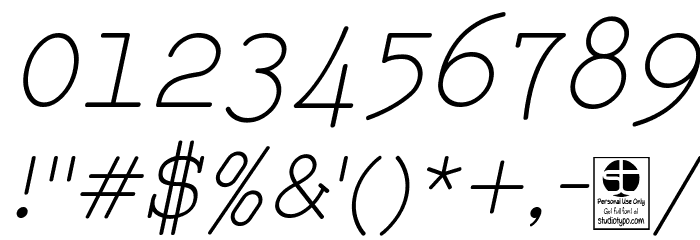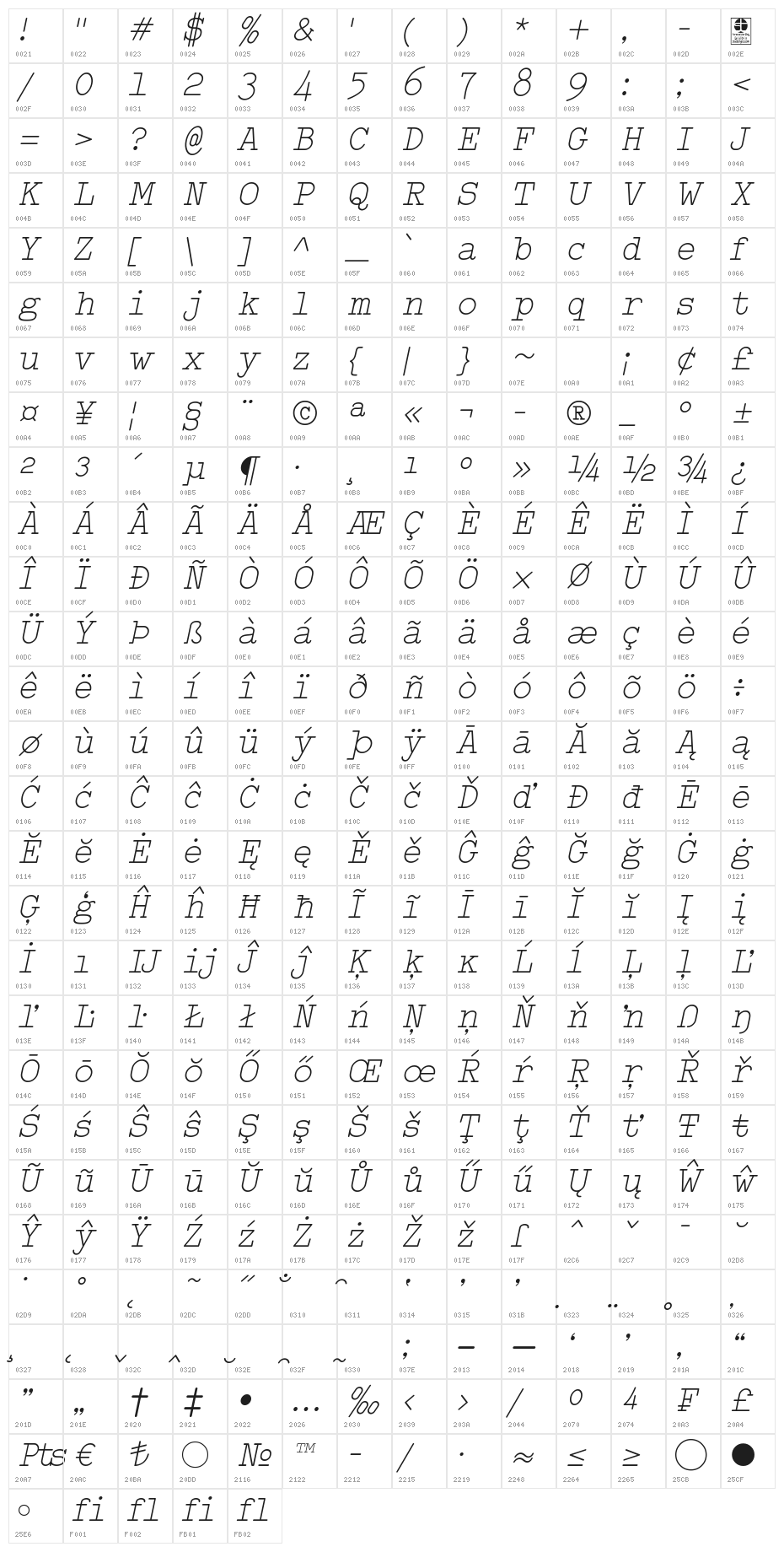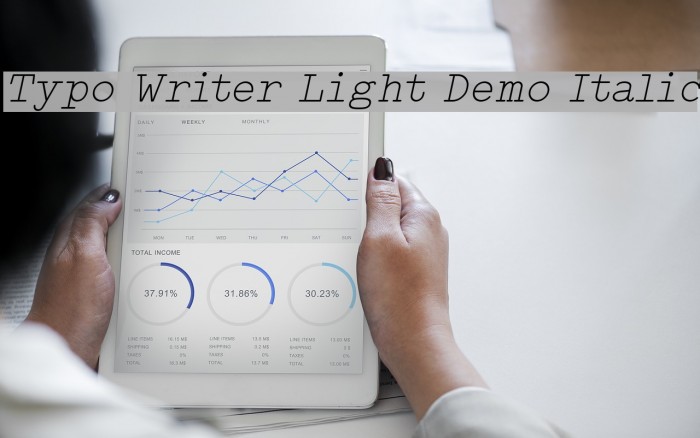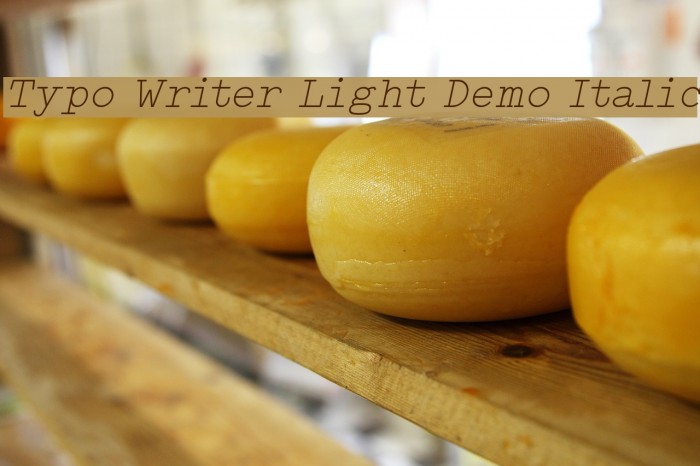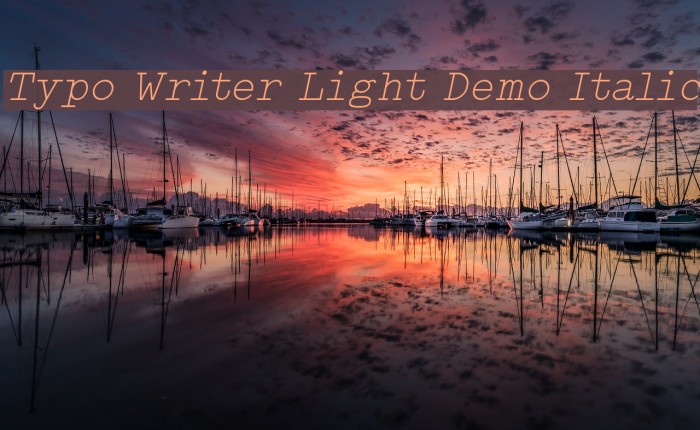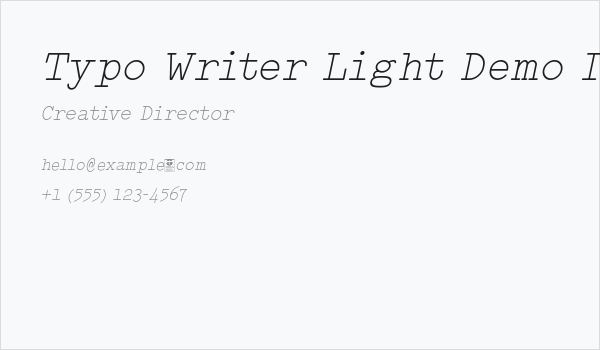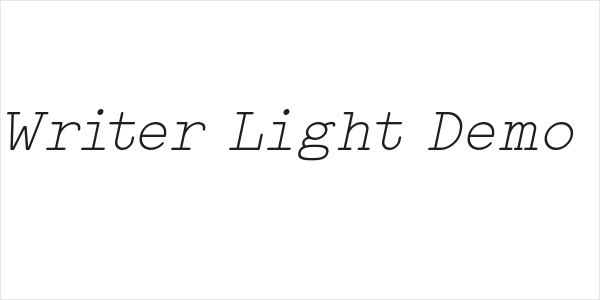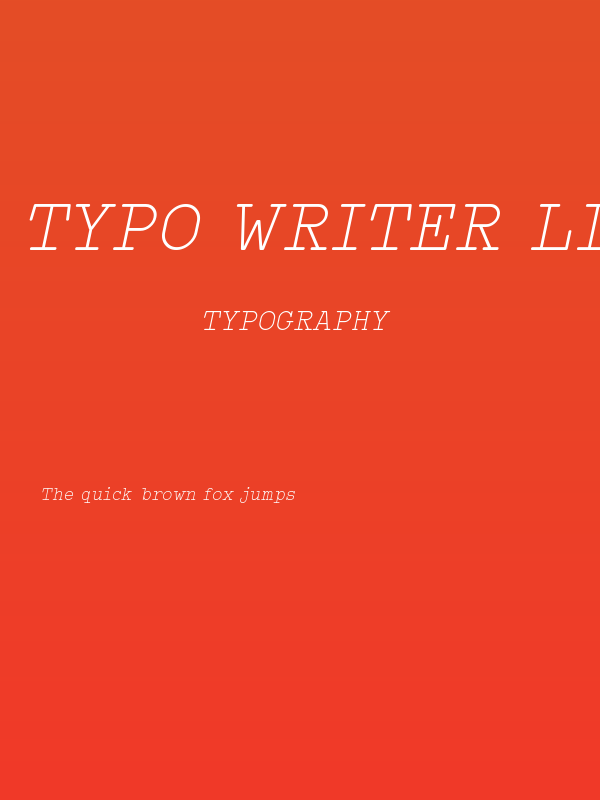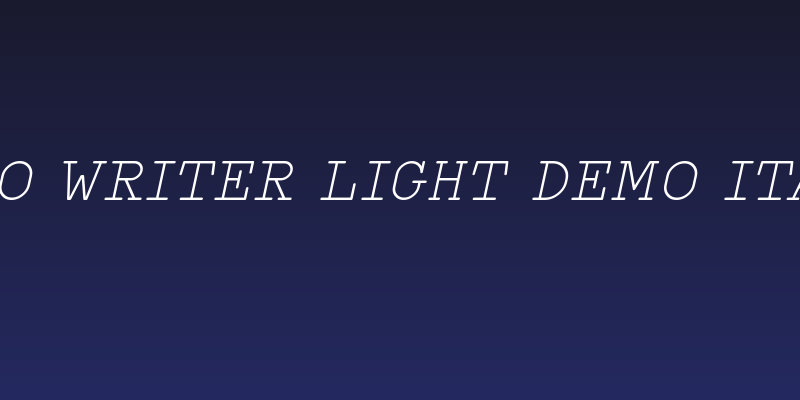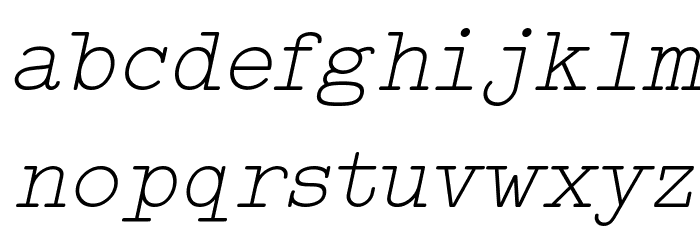
Typo Writer Light Demo Italic Font
Typo Writer Light Demo Italic Description
This font features a classic typewriter style with a modern twist, characterized by its light weight and italicized form. The letters are evenly spaced with a slight slant, giving it a dynamic yet elegant appearance. The uppercase and lowercase letters maintain a consistent style, with rounded edges and a uniform stroke width that enhances readability. The numerals and special characters are designed to complement the alphabet, maintaining the same light and airy feel. This font is perfect for projects that require a vintage typewriter aesthetic with a contemporary flair.
| Proposed Projects | Ideal for creative writing projects, retro-themed designs, personal blogs, and stationery. |